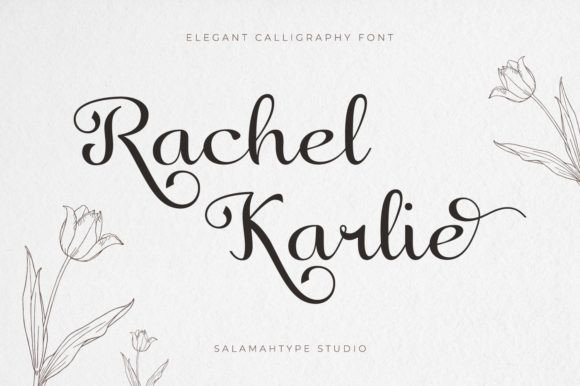
Unleash the Enchantment of Your Designs with Rachel Karlie Font: A Stroke of Creative Magic
Journey into a world of captivating typography with Rachel Karlie Font, an elegant script font overflowing with charm and grace. This masterpiece from salamahtype is a true artist's companion, meticulously crafted to add a touch of sophistication and allure to your creative endeavors.
With Rachel Karlie as your ally, you'll find yourself effortlessly conjuring stunning invitations that exude timeless elegance. Its graceful curves and delicate swashes dance across the page, weaving tales of love and celebration. Let your imagination run wild as you design wedding stationery that radiates an air of romance and enchantment.
But the magic of Rachel Karlie doesn't stop at invitations. This versatile font is a perfect match for a myriad of branding projects, effortlessly elevating logos, product packaging, and designs with its refined aesthetic. Picture your products adorned with labels that whisper luxury and exclusivity, leaving an indelible mark on your customers' minds.
Social media, advertisements, and merchandise all come alive with the touch of Rachel Karlie. Its enchanting aura captivates audiences, drawing them into your creative realm. Your social media posts and ads become works of art, commanding attention and sparking conversations. Merchandise adorned with Rachel Karlie's delicate strokes becomes a symbol of impeccable taste and style, a must-have for discerning individuals.
Dive into the Enchanting World of Rachel Karlie Font Today
Step into a realm of creativity like never before by embracing the beauty of Rachel Karlie Font. Its carefully crafted glyphs and ligatures, accessible with ease through PUA encoding, empower you to weave tales of elegance and charm into your designs.